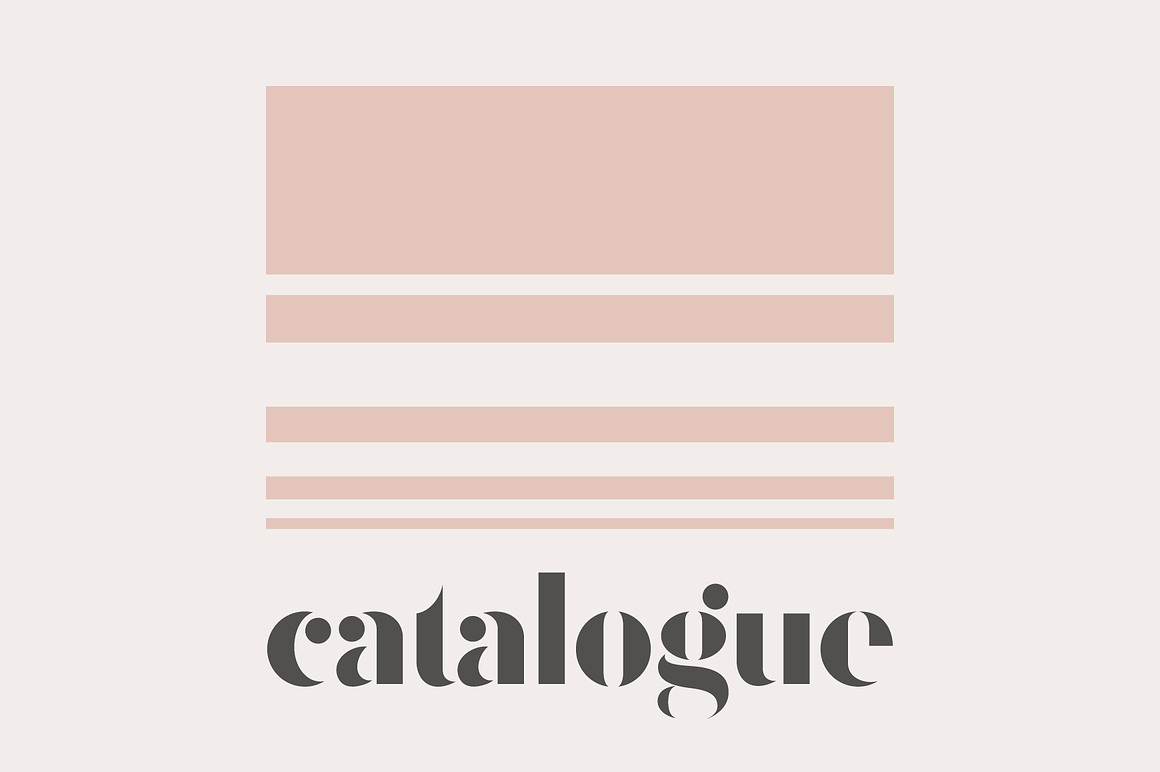
Catalogue - A Minimal Typeface
Catalogue A Minimal Typeface is perfect for contemporary art gallery branding, modern architecture firm presentations, minimalist fashion labels, clean e-commerce platforms, sophisticated product catalogs, museum exhibition materials, high-end design studios, editorial magazine layouts, luxury brand communications, and refined digital interfaces. This pristine typeface excels in applications where clarity, systematic organization, and understated elegance are fundamental design requirements.
What makes Catalogue A Minimal Typeface exciting is its masterful reduction to essential elements that creates maximum impact through absolute clarity and purposeful restraint. The font features perfectly balanced letterforms with optimized spacing and geometric precision that eliminate visual noise while maintaining distinctive character and excellent readability. Its systematic approach makes it ideal for brands that believe in the power of clarity over complexity, where every element serves a purpose and nothing is included without intention.
Catalogue A Minimal Typeface family typically includes comprehensive weight options from Thin to Bold, often featuring condensed and extended variations that provide maximum flexibility for complex layout systems and information hierarchies. Many versions include alternate characters with enhanced minimalist styling, systematic numerical variations, and refined punctuation marks that maintain perfect visual consistency. Some collections feature matching icon sets and geometric elements that create comprehensive design systems for cohesive brand applications.
Whether you're developing brand identities for contemporary design companies, creating systematic product presentations, or designing interfaces that prioritize user clarity and visual efficiency, Catalogue A Minimal Typeface Free Download delivers the sophisticated minimalism that modern brands demand. Its purposeful character makes it perfect for organizations that serve educated audiences who appreciate intelligent design and systematic thinking. The font's ability to convey both intellectual rigor and aesthetic refinement makes it particularly valuable for design studios, cultural institutions, and technology companies seeking to communicate complex ideas through clean, systematic visual communication that respects user intelligence and celebrates the beauty found in purposeful simplicity and thoughtful organization.